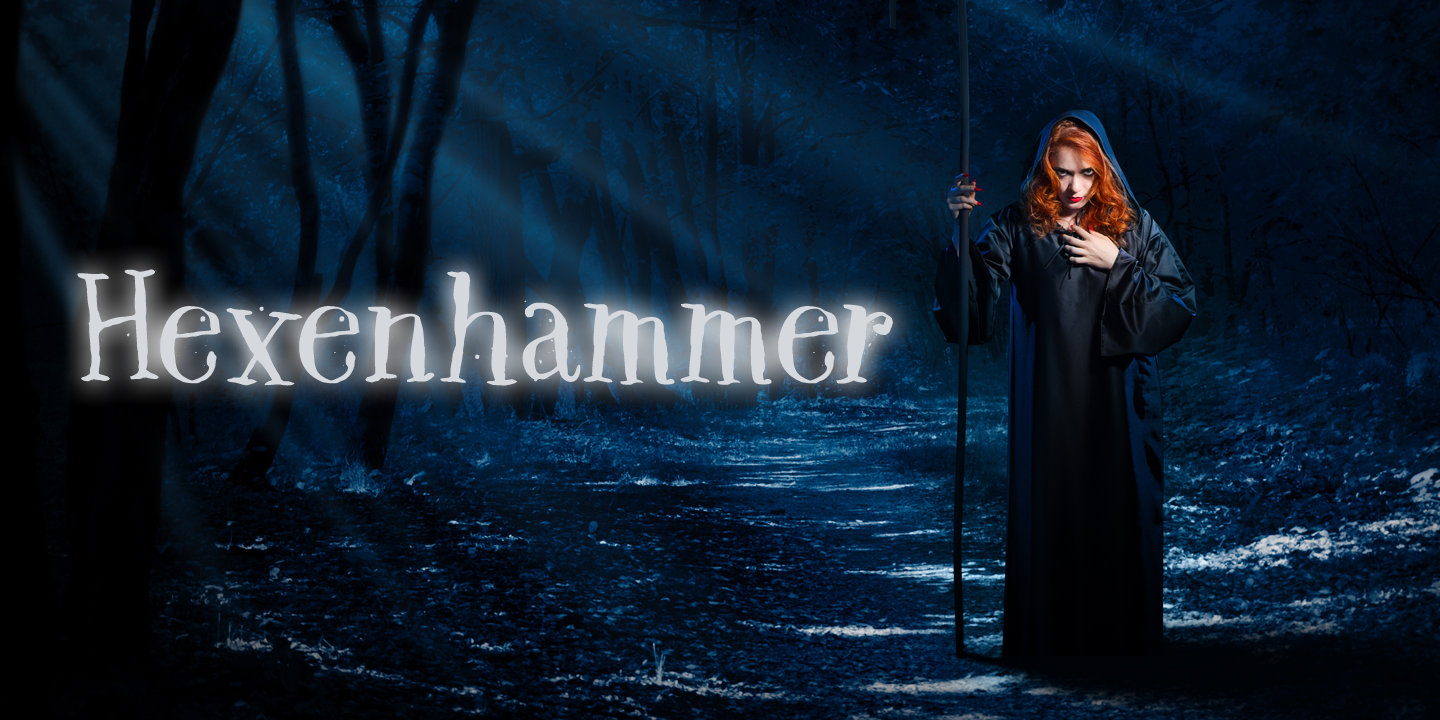
Hexenhammer Font is perfect for dark fantasy gaming, medieval horror branding, occult-themed designs, gothic metal band logos, witch-themed entertainment, dark magic book covers, supernatural thriller graphics, and ominous designs that require ancient mystical power and medieval darkness.
This font is exciting because it evokes the dark mysticism of medieval witch trials through its foreboding letterforms that seem forged in the fires of ancient superstition and supernatural fear. The haunting character design embodies the mysterious power of forbidden knowledge and dark magic, making it perfect for projects that explore the darker aspects of medieval history and supernatural themes.
Hexenhammer Font belongs to the dark medieval font family, featuring occult styling and mystical elements that enhance its authenticity for horror and supernatural-focused design applications.
Whether you're creating dark fantasy gaming branding or supernatural horror graphics, Hexenhammer Font Free Download delivers maximum mystical impact and medieval darkness. This typeface perfectly captures the essence of ancient occult traditions while maintaining excellent functionality for contemporary entertainment applications. The font's ominous presence works exceptionally well in gaming titles, horror communications, and dark fantasy materials, providing strong readability while maintaining its mystical character that transforms any design with supernatural power and creates unforgettable dark magical experiences across all media platforms and gothic entertainment communications.